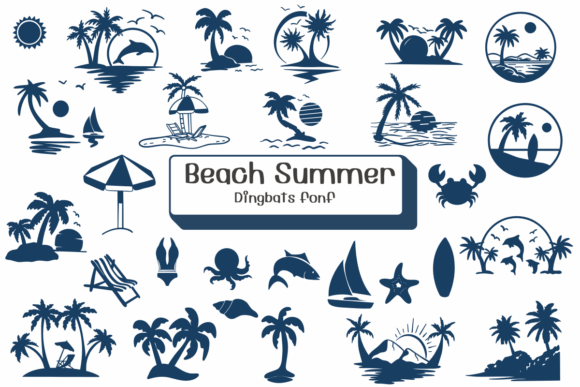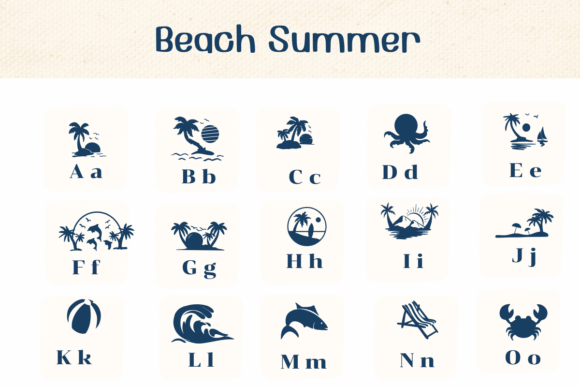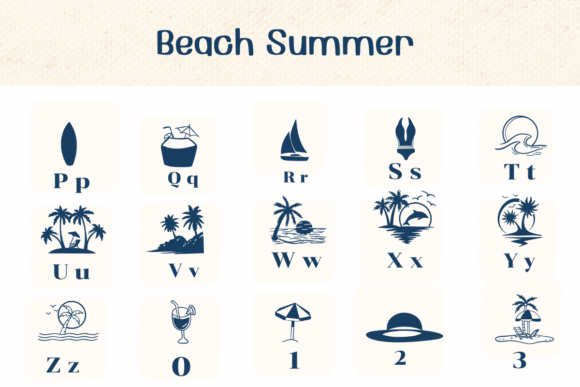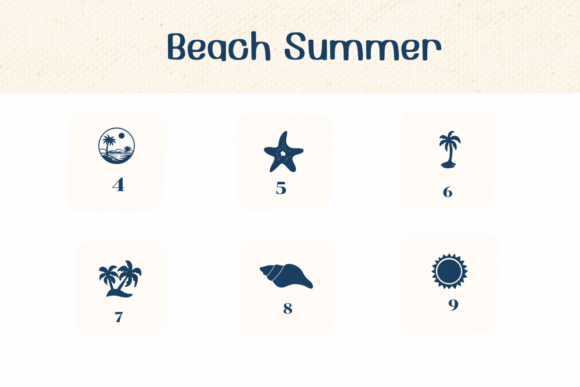
Beach Summer Font
Beach Summer is a dingbats font with theme with a sketch style. This font can enhance your creative projects such as wedding invitations, DIY, crafts, decorations, logos, and many other creative ideas.